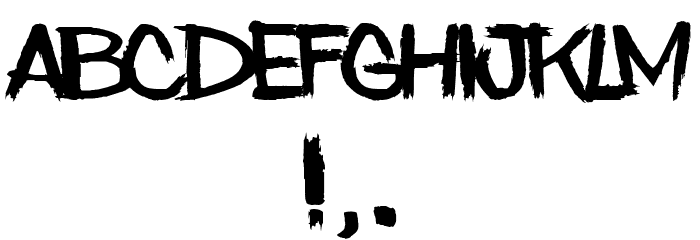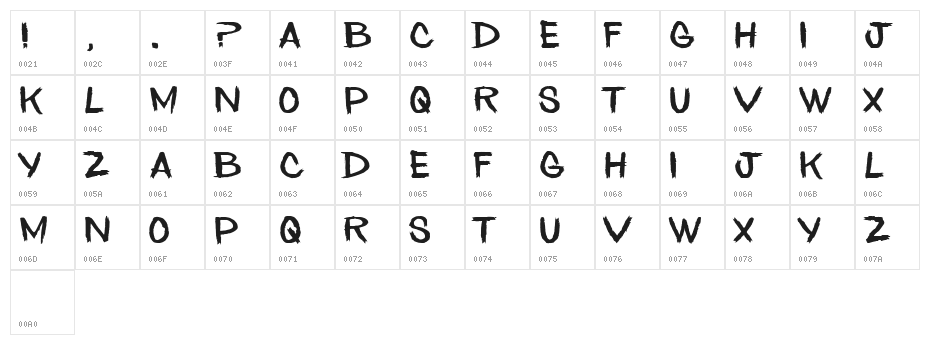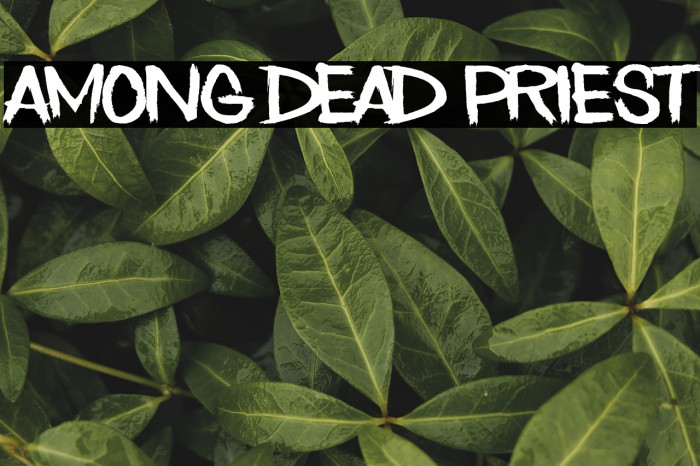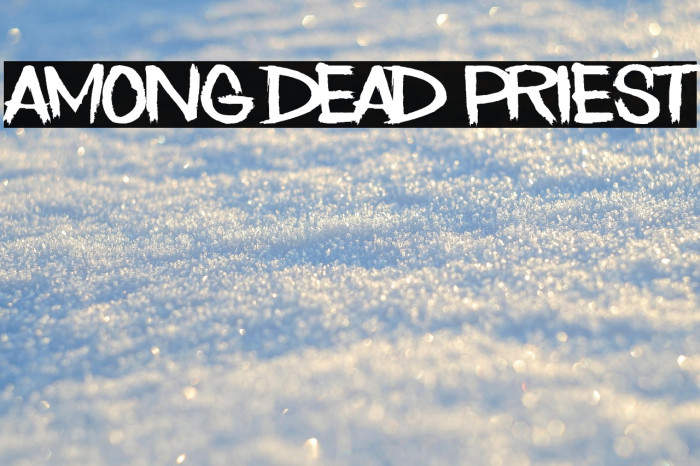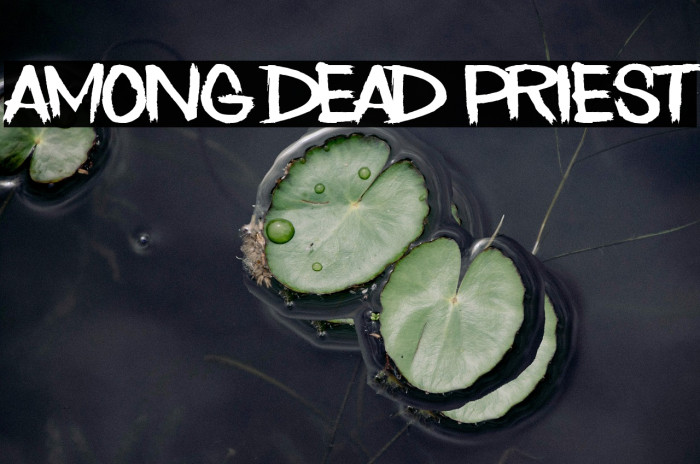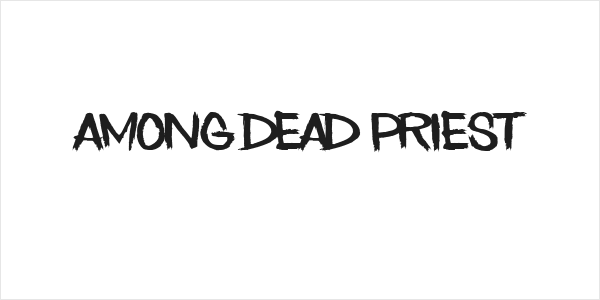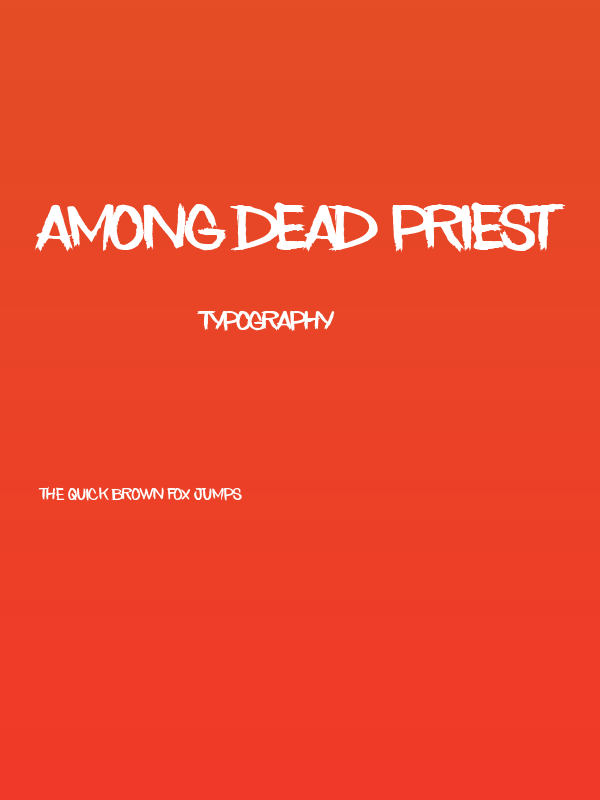
Among Dead Priest Font
Among Dead Priest Description
This font features a bold, edgy style with a distressed, grunge appearance. The characters are uneven and jagged, giving them a hand-drawn, rebellious look. The strokes are thick and irregular, creating a sense of urgency and raw energy. The uppercase and lowercase letters maintain a consistent style, with sharp angles and rough edges. This font is designed to stand out and make a statement, perfect for projects that require a bold and unconventional aesthetic.
| Overall Style | Edgy, Grunge, Rebellious |
| Proposed Projects | Ideal for music album covers, posters, streetwear branding, and edgy graphic designs. |